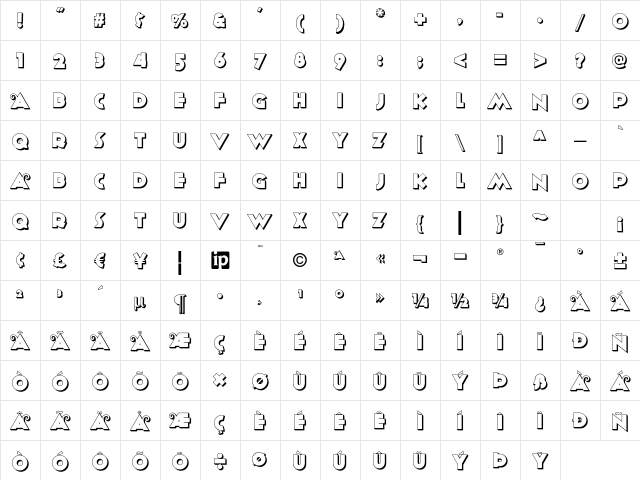
Complete Anagram Shadow NF Regular glyph index. Displaying only characters natively supported by Anagram Shadow NF Regular font.
Anagram Shadow NF is built around its visual character rather than neutral utility - its distinctive forms are designed to make an impression at display sizes.
Font Pairing: Pair with a clean neutral sans-serif for body copy to let Anagram Shadow NF's character lead without overwhelming the composition.
Pro Tip: Use Anagram Shadow NF exclusively at display sizes - it was designed to be seen, not read at length. Let a neutral companion handle body copy.